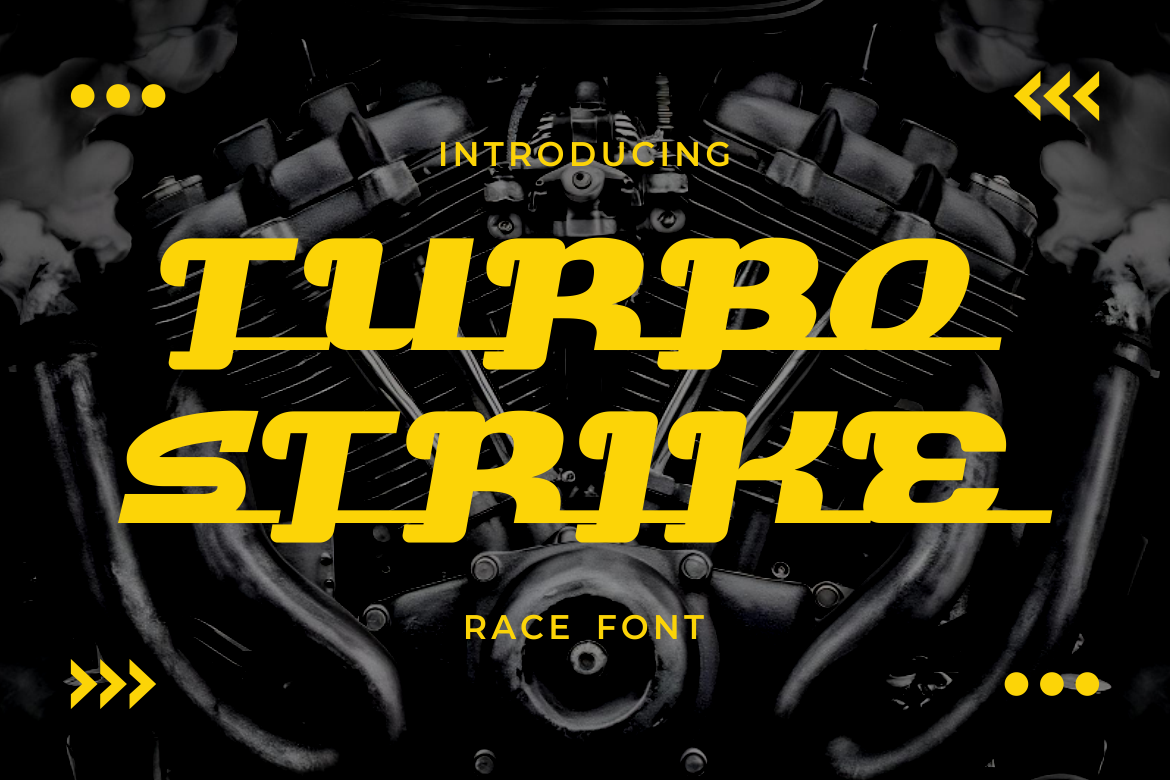
The automotive industry is one of the most competitive markets in the world. Whether you’re running a car detailing service, motorcycle workshop, auto accessories store, spare parts supplier, racing team, vehicle customization business, or automotive media brand, building a strong visual identity is essential for attracting customers and creating long-term recognition.
One of the most powerful yet often overlooked branding elements is typography. The right font can instantly communicate speed, power, innovation, reliability, and performance. A strong automotive font helps transform ordinary branding into a memorable experience that captures the excitement and energy associated with vehicles and motorsports.
From logos and product packaging to workshop signage, social media graphics, vehicle wraps, websites, merchandise, and promotional materials, typography plays a crucial role in shaping customer perception. The best automotive brands understand that every visual element contributes to trust and professionalism.
In this guide, we’ll explore seven of the best fonts for automotive businesses that can help strengthen your brand identity and elevate your marketing efforts.
Initial Suggestion
Before selecting a font, identify the personality of your automotive brand.
Match Typography to Your Automotive Niche
Different automotive businesses require different visual styles.
Examples:
- Racing brands often use aggressive speed-inspired fonts.
- Car detailing businesses benefit from clean modern typography.
- Auto parts companies often prefer bold industrial fonts.
- Motorcycle brands may use rugged or vintage-inspired typefaces.
Consider Every Branding Application
Your font should perform well across:
- Company logos
- Product packaging
- Workshop signage
- Vehicle graphics
- Social media campaigns
- Advertising materials
- Merchandise
Focus on Visibility
Automotive branding often appears on moving vehicles, large signs, and promotional banners. Strong readability is essential.
Build Consistency
Using the same typography system across all marketing channels creates stronger recognition and a more professional appearance.
1. Turbo Strike – Race Font
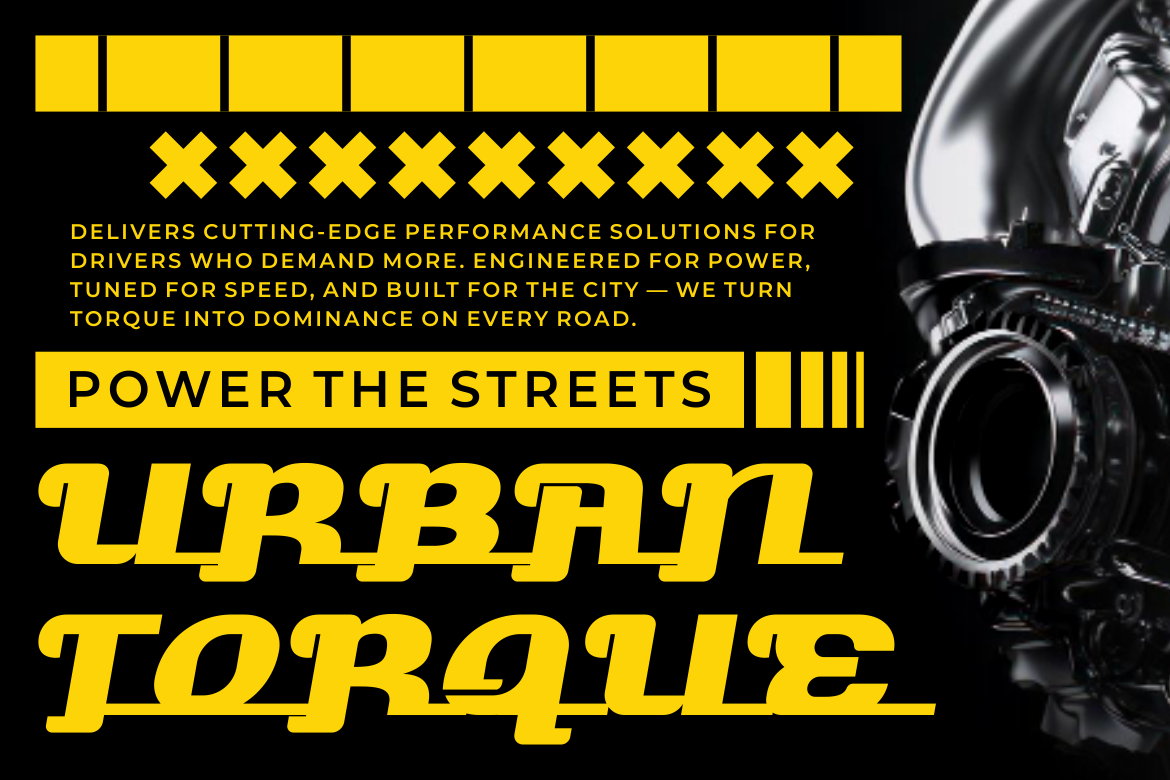
Turbo Strike is a high-energy racing font designed to capture the thrill of speed and performance. Its sharp lines and dynamic letterforms create a strong sense of motion, making it ideal for automotive brands that want to project power and excitement. Whether used on race car graphics, performance tuning shops, auto detailing brands, or motorsport merchandise, Turbo Strike immediately grabs attention and creates a memorable visual impact.
Pros
- Strong racing identity
- Dynamic movement effect
- Excellent logo performance
- Highly recognizable
- Racing brands
- Performance workshops
- Motorsport events
- Car tuning businesses
- Automotive merchandise
2. Speed Buster – Futuristic Cyberpunk Font
Speed Buster combines futuristic styling with automotive-inspired energy. The modern character design feels innovative and technologically advanced, making it an excellent choice for businesses specializing in electric vehicles, smart automotive solutions, custom lighting systems, and performance technology. It helps brands communicate innovation while maintaining a bold and professional image.
Pros
- Futuristic appearance
- Modern technology appeal
- Unique visual identity
- Excellent branding flexibility
- EV businesses
- Automotive technology brands
- Performance accessories
- Custom automotive products
- Digital automotive media
3. Inferno Racers – Race Font
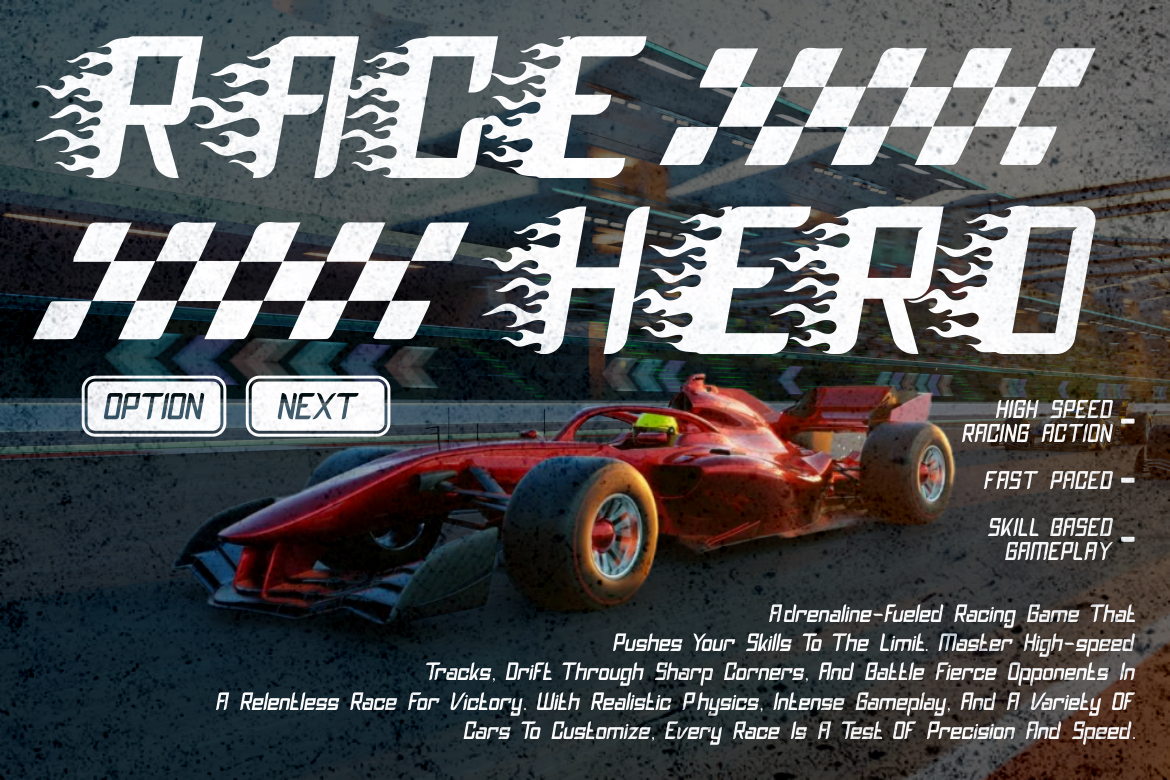
Inferno Racers delivers aggressive motorsport aesthetics with bold, action-oriented letterforms. The font creates a powerful impression that instantly communicates competition, speed, and adrenaline. Its energetic style makes it perfect for automotive businesses targeting performance enthusiasts and racing communities.
Pros
- Aggressive visual style
- Strong motorsport personality
- Excellent display font
- High brand visibility
- Racing teams
- Performance garages
- Motorsport promotions
- Car events
- Automotive apparel
4. Nitro Nova – Race Font
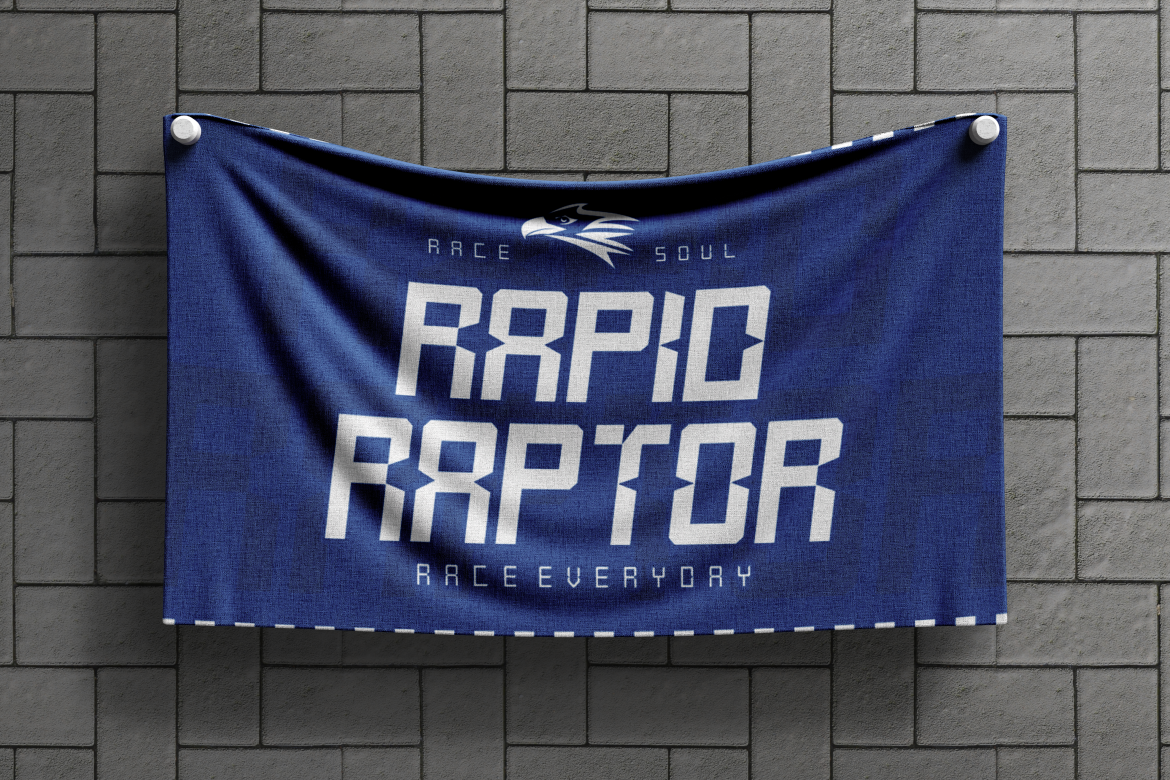
Nitro Nova offers a sleek balance between speed and professionalism. The font is designed for businesses that want an automotive-inspired look without appearing overly aggressive. Its streamlined structure helps create a modern and reliable brand identity suitable for a wide range of automotive applications.
Pros
- Clean racing aesthetic
- Modern appearance
- Strong readability
- Versatile branding use
- Car detailing services
- Auto care businesses
- Automotive startups
- Workshop branding
- Vehicle service centers
5. Rapido Racers – Quirky Display Speed Font
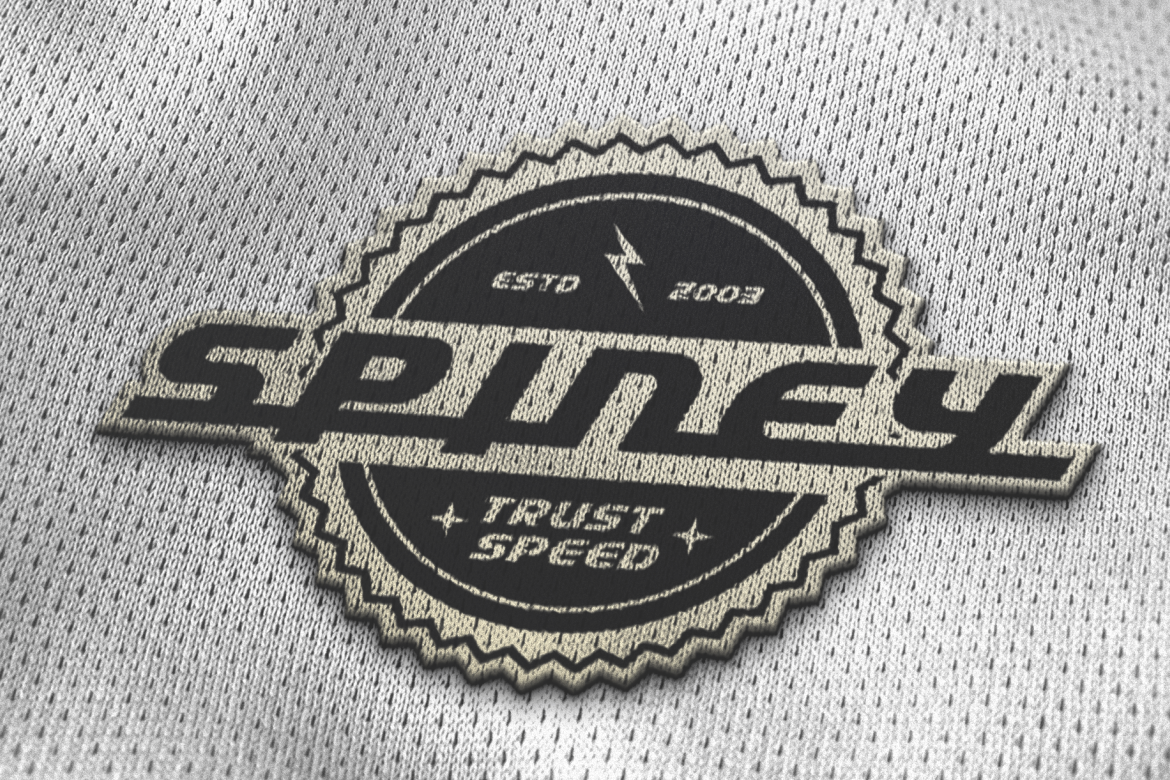
Rapido Racers introduces personality and energy into automotive branding. The unique display style helps brands stand out while maintaining a clear connection to speed and motion. This font is particularly effective for businesses targeting younger automotive enthusiasts and creative automotive communities.
Pros
- Unique character style
- Strong visual personality
- Excellent marketing appeal
- Memorable branding
- Automotive content creators
- Car enthusiast communities
- Youth-focused automotive brands
- Merchandise design
- Social media campaigns
6. Fastlane – Sport Font
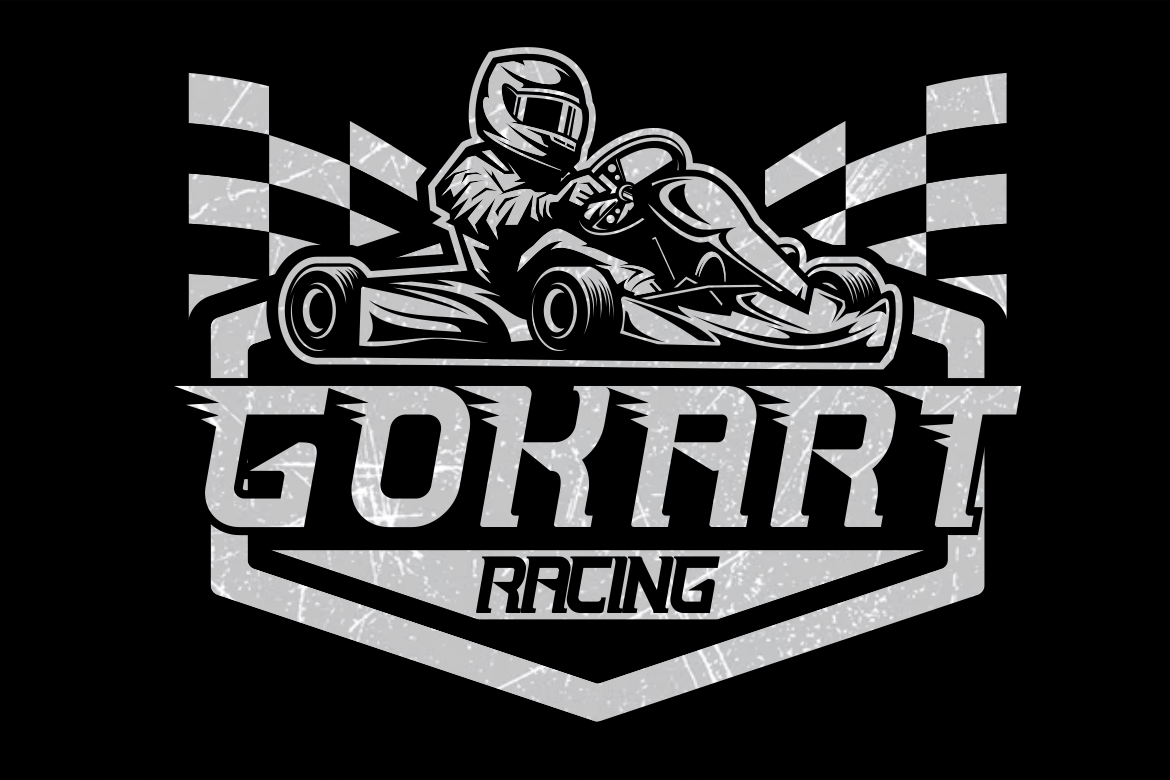
Fastlane is a bold sports-inspired font that combines strength and speed in a balanced design. Its athletic appearance makes it highly adaptable for automotive businesses that want a professional yet energetic visual identity. The font performs exceptionally well in logos, advertisements, and promotional materials.
Pros
- Strong athletic look
- Excellent readability
- Professional branding style
- Wide application range
- Car detailing brands
- Auto accessories stores
- Automotive websites
- Marketing campaigns
- Promotional graphics
7. Cracked Concrete – Vintage Serif Font
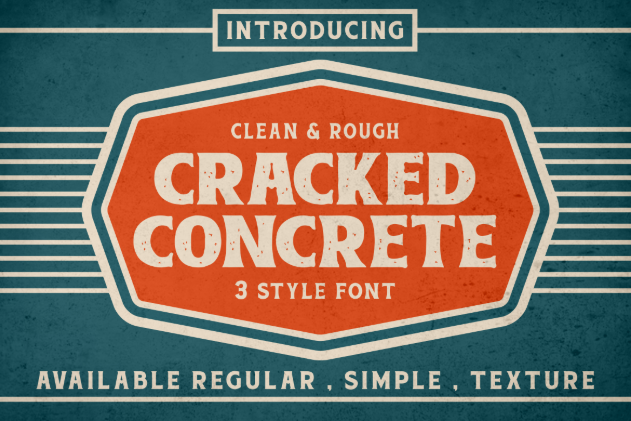
Cracked Concrete brings a rugged and industrial personality to automotive branding. The distressed serif style creates a sense of durability, craftsmanship, and authenticity. It is particularly effective for restoration garages, vintage automotive brands, motorcycle workshops, and businesses focused on classic vehicles.
Pros
- Rugged industrial appeal
- Distinctive vintage character
- Strong brand personality
- Unique market positioning
- Classic car restoration
- Motorcycle workshops
- Vintage automotive brands
- Garage branding
- Automotive lifestyle products
Comparison
| Font | Style | Personality | Best Industry |
|---|---|---|---|
| Turbo Strike | Racing Display | Fast & Powerful | Motorsport |
| Speed Buster | Futuristic | Innovative & Modern | Automotive Tech |
| Inferno Racers | Racing | Aggressive & Competitive | Performance Industry |
| Nitro Nova | Modern Race | Clean & Professional | Car Care Services |
| Rapido Racers | Quirky Speed | Creative & Energetic | Automotive Content |
| Fastlane | Sport Font | Professional & Dynamic | Auto Services |
| Cracked Concrete | Vintage Serif | Rugged & Authentic | Restoration Businesses |
Recommended by Automotive Category
This is Best for Car Detailing Businesses
- Nitro Nova
- Fastlane
And this is Best for Racing Brands
- Turbo Strike
- Inferno Racers
If you want Best for Automotive Technology
- Speed Buster
Or you can use it Best for Auto Accessories Stores
- Fastlane
- Nitro Nova
Best for Vintage Automotive Brands
- Cracked Concrete
Best Overall Font for Automotive Business
- Turbo Strike
Common Mistake
One of the most common mistakes automotive businesses make is choosing fonts based solely on appearance without considering brand positioning. A high-performance tuning shop, for example, requires a completely different typography style than a luxury detailing service or a vintage restoration garage. Using an inappropriate font can create confusion and weaken brand perception. Effective automotive branding starts with understanding the target audience and selecting typography that reinforces the company’s core values and services.
Another frequent mistake is sacrificing readability for style. Many racing-inspired fonts look exciting in large headlines but become difficult to read on business cards, websites, packaging, or social media content. Automotive businesses often need typography that works across a variety of applications, from vehicle wraps and workshop signage to digital advertising. A font should remain clear and effective regardless of size or medium.
Many entrepreneurs also overlook consistency. Different fonts used across logos, advertisements, websites, and merchandise can make a brand appear fragmented and unprofessional. Successful automotive companies usually establish a typography system that creates a unified visual identity across all customer touchpoints. This consistency strengthens brand recognition and builds trust over time.
Conclusion
The best font for automotive business branding can significantly influence how customers perceive your company. Typography helps communicate speed, performance, reliability, innovation, and professionalism while supporting long-term brand recognition.
Whether you’re launching a car detailing business, auto accessories shop, performance garage, racing team, motorcycle workshop, or automotive media brand, selecting the right font is a crucial part of building a strong visual identity.
From the speed-focused energy of Turbo Strike and Inferno Racers to the modern professionalism of Nitro Nova and Fastlane, each font offers unique advantages depending on your business goals. By choosing typography that aligns with your brand personality and maintaining consistency across all marketing channels, you can create a powerful automotive brand that stands out in a highly competitive industry.